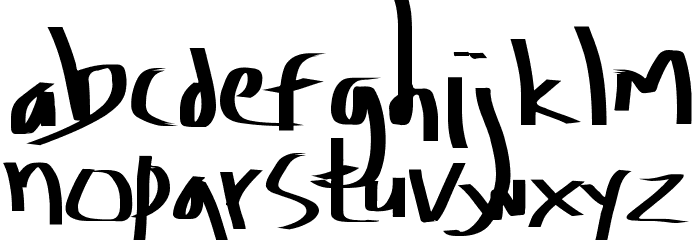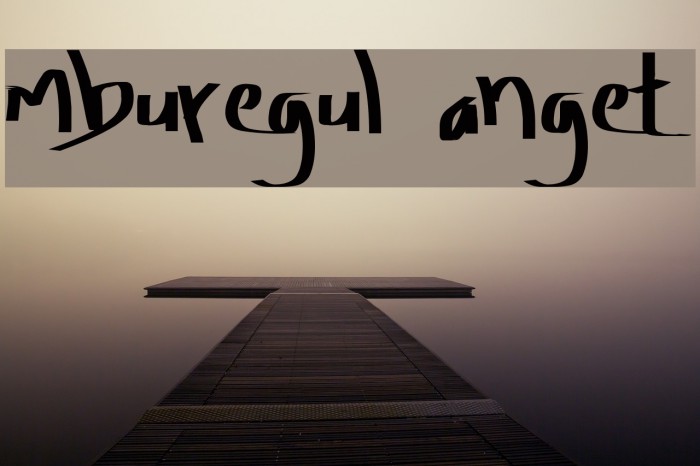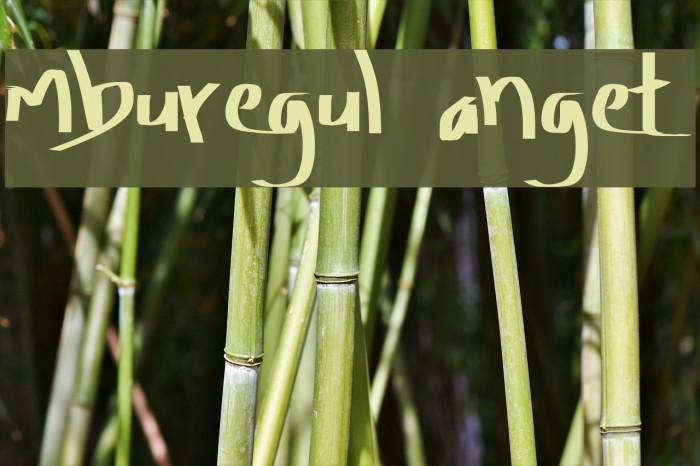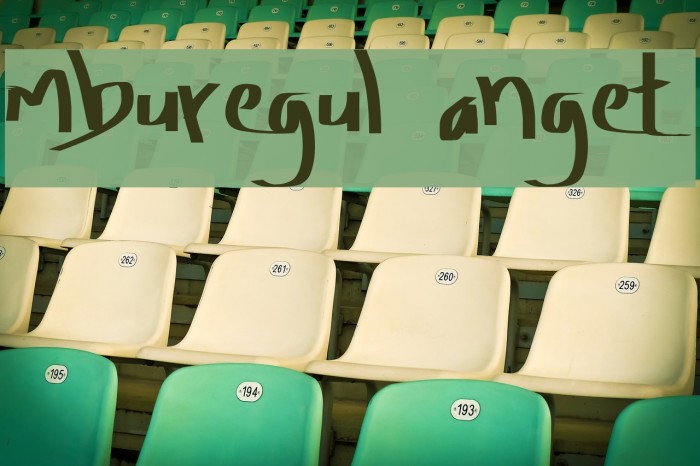
Amburegul Banget Font
This font exhibits a dynamic and expressive handwritten style, characterized by its bold and fluid strokes. The lowercase letters are particularly distinctive, with varying heights and a playful, artistic flair. The strokes are thick and energetic, giving the font a lively and spontaneous appearance. The overall design is informal and creative, making it suitable for projects that require a personal touch or a sense of whimsy. The font's unique character shapes and varying line thicknesses contribute to its artistic and unconventional look.
A bold, expressive handwritten font with dynamic and fluid strokes.
- Font: Amburegul Banget
- Proposed Projects: Ideal for creative projects such as greeting cards, invitations, artistic posters, and personal branding.
- Category: Handwritten
- Use Case: Logos, Headlines, Artistic projects